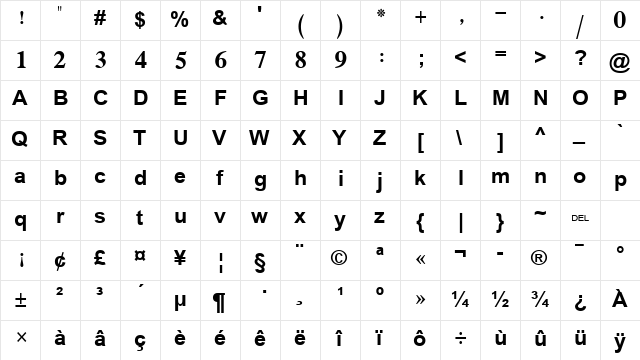
Arabic Transparent Bold
Design Context for Arabic Transparent Typeface
Arabic Transparent offers clean, dependable letterforms without strong stylistic allegiance, making it a practical choice for designers who need flexibility. Its bold stroke weight gives it real presence on the page.